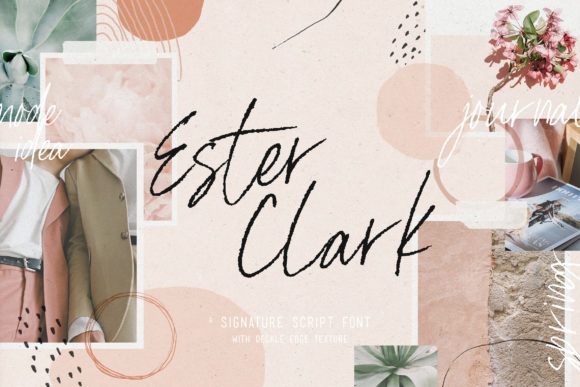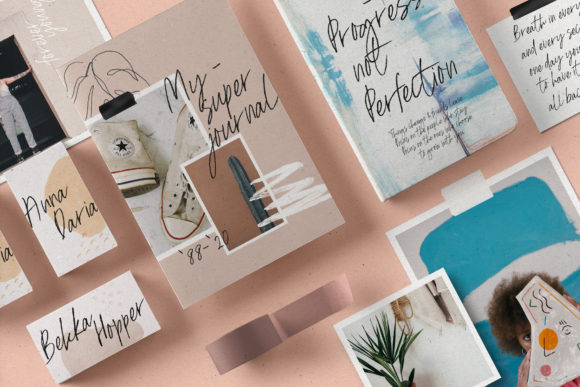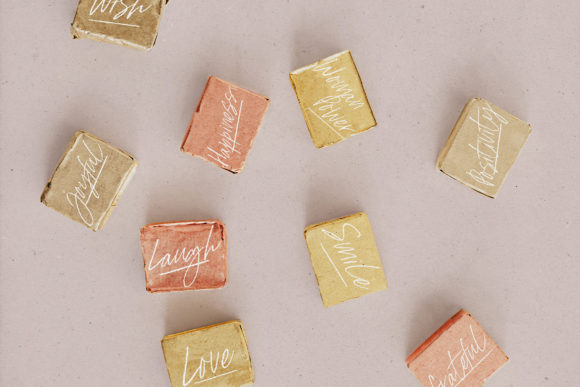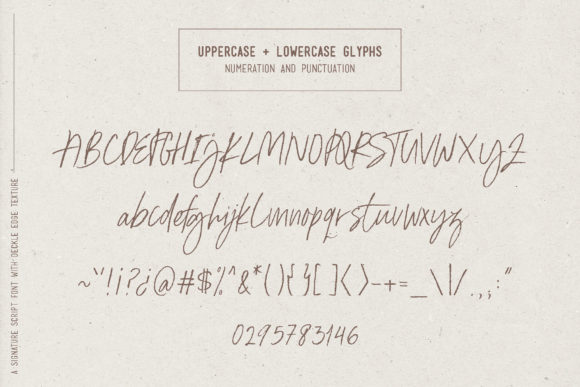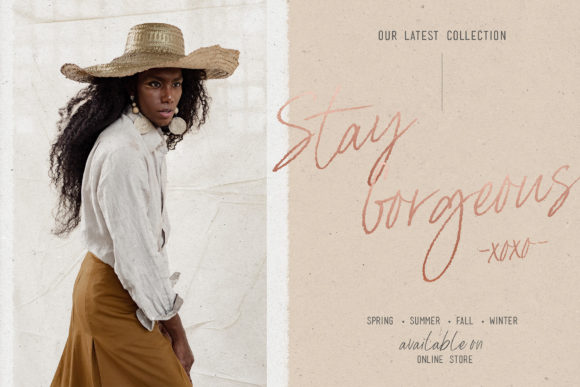
About Ester Clark Font
Introducing “Ester Clark,” a sweet and one-of-a-kind handwritten font that exudes charm and uniqueness. Its vintage style adds a touch of nostalgia and elegance to a variety of designs, making it the perfect choice for adding a delightful twist to your favorite creative ideas. Prepare to be charmed by its beauty and watch as it brightens up your designs in the most enchanting way!
The vintage allure of “Ester Clark” makes it a wonderful fit for a wide range of projects. Whether you’re working on wedding invitations, branding materials, or custom art prints, this font adds a touch of character that sets your work apart.
Embrace the versatility of “Ester Clark,” as it seamlessly complements different design styles and themes. Its unique and handwritten charm allows it to effortlessly blend into both modern and vintage aesthetics, making it a reliable choice for all your creative ventures.
Unleash your creativity and watch how “Ester Clark” enhances your designs with its sweet and distinctive touch. Whether you’re crafting greeting cards, creating social media graphics, or designing packaging, this font will bring a sense of warmth and authenticity that captivates your audience.
The vintage style of “Ester Clark” not only adds character but also evokes a sense of nostalgia, making it perfect for projects that want to capture a timeless and classic feel. Let it transport your audience to a bygone era, infusing your designs with a touch of romance and elegance.
So, immerse yourself in the sweetness of “Ester Clark” and let it become your creative muse. Allow its vintage and handwritten allure to inspire your designs, turning them into captivating works of art. Whether you’re a seasoned designer or a passionate enthusiast, “Ester Clark” empowers you to create visuals that exude charm and make a lasting impact. Let “Ester Clark” be the key to brightening up your designs and watch as it brings a touch of magic to every project you embark on!